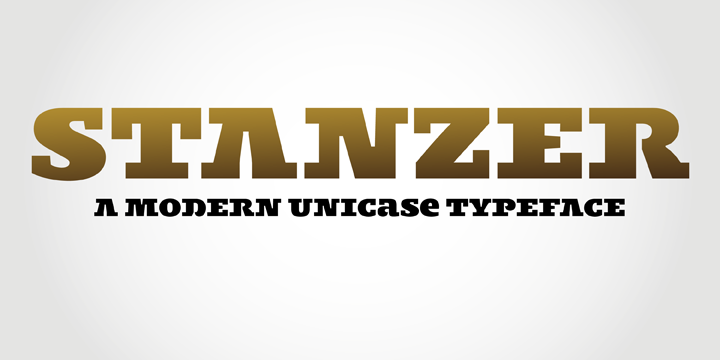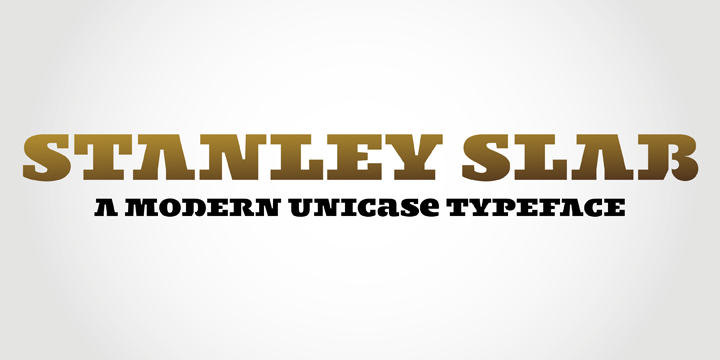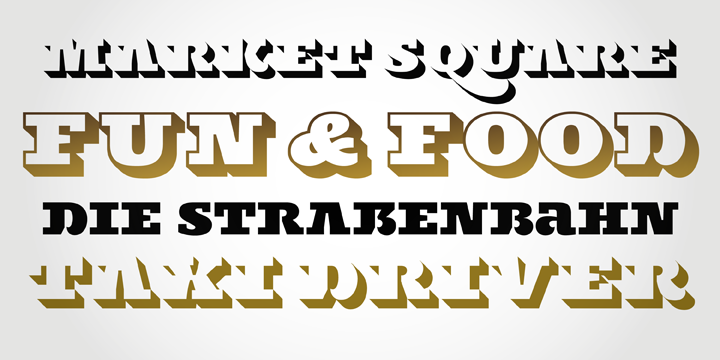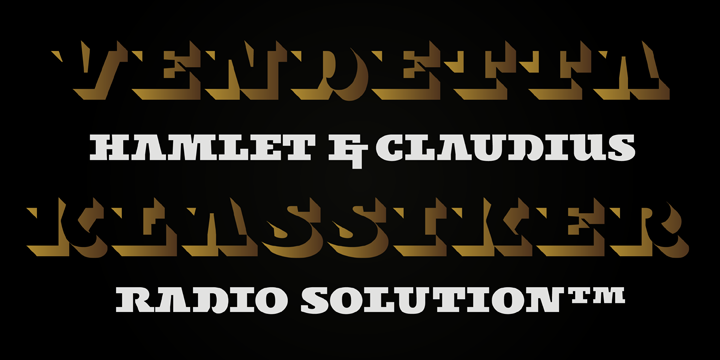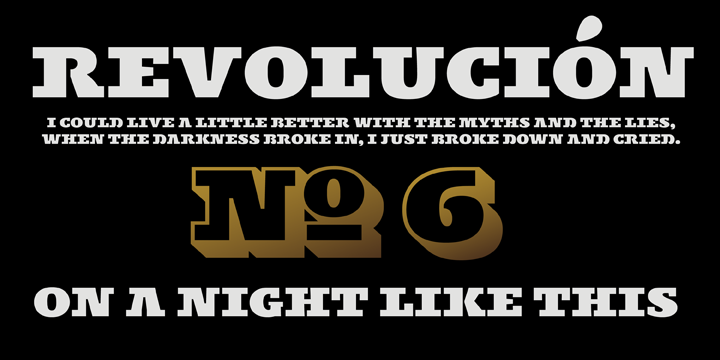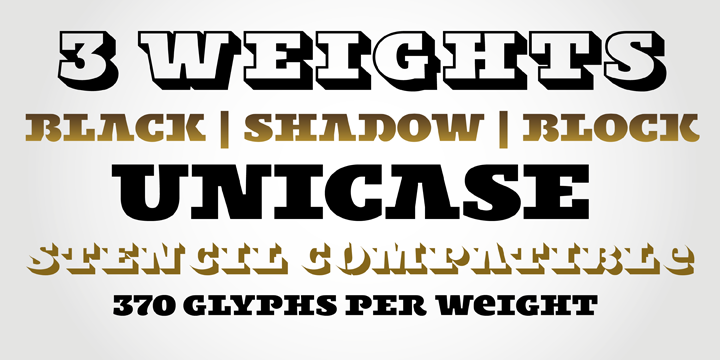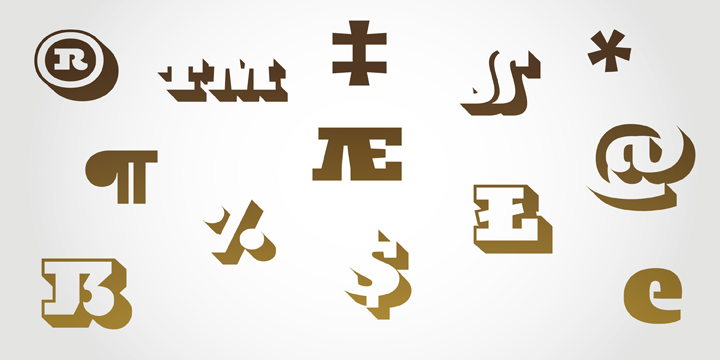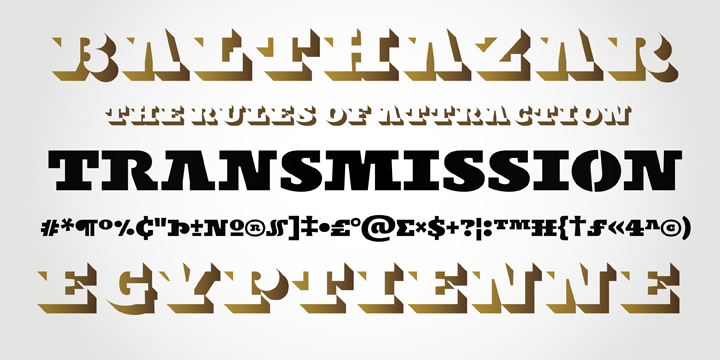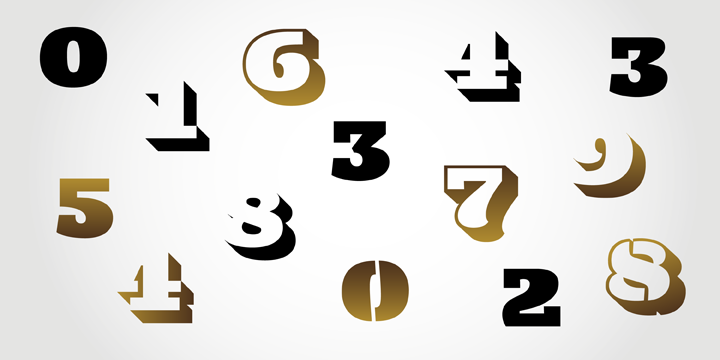
Stanley Slab is an interpretation of wood type combined with the idea of modern stencils. Instead of cutting every letter, we are presenting an example of how a modern stencil typeface could look like.
The conclusion is that almost every letter works without cutting it.
Stanley Slab is a Unicase typeface, available in three OpenType weights: Black, Shadow and Block.
Igor Labudovic
Michael Hager